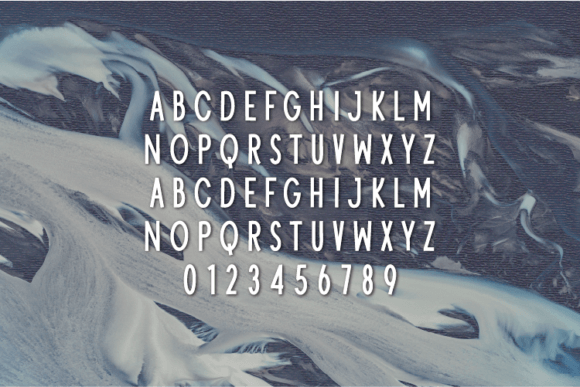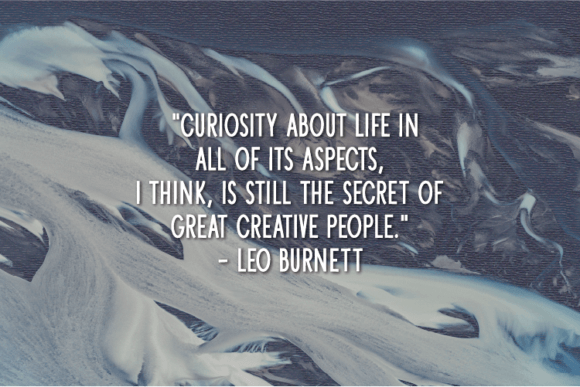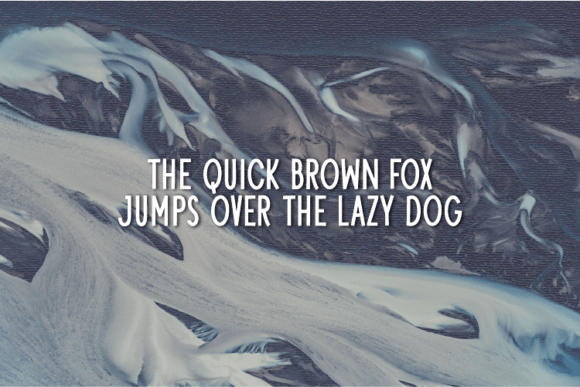
Goddess Font: Elevate Your Designs with a Friendly and Cool Handwritten Style
Are you on the hunt for a font that exudes a sense of warmth, approachability, and style? Look no further than the Goddess Font! This beautiful, handwritten font is perfect for designers and crafters looking to add a touch of elegance and sophistication to their projects. With its minimalist and clean vibe, Goddess Font is an excellent choice for a wide range of applications, from book covers and magazines to social media posts and invitations.
What Makes Goddess Font So Special?
Goddess Font is a unique and versatile typeface that boasts a friendly and cool handwritten style. Its clean lines, subtle curves, and balanced proportions make it an excellent choice for designers seeking a font that is both visually appealing and easy to read. Whether you’re working on a creative project or simply want to add a personal touch to your digital content, Goddess Font is sure to impress.
Key Features of Goddess Font
- Handwritten style: Goddess Font features a beautiful, handwritten style that adds a touch of warmth and personality to your designs.
- Minimalist and clean vibe: The font’s minimalist and clean aesthetic makes it perfect for a wide range of applications, from modern and sleek designs to more traditional and elegant projects.
- Easy to read: Goddess Font is designed to be easy to read, making it an excellent choice for body text, headings, and titles.
- Versatile: This font is perfect for a variety of projects, including book covers, magazines, social media posts, invitations, and more.
Uses for Goddess Font
Goddess Font is an incredibly versatile typeface that can be used in a wide range of applications. Here are some ideas to get you started:
- Book covers: Add a touch of elegance and sophistication to your book covers with Goddess Font.
- Magazines: Use Goddess Font as a headline or body font to add a touch of warmth and personality to your magazine layouts.
- Social media posts: Elevate your social media posts with Goddess Font, perfect for creating eye-catching graphics and engaging content.
- Invitations: Add a touch of style and sophistication to your invitations, whether it’s for a wedding, birthday party, or other special occasion.
- Branding and packaging: Use Goddess Font to create a cohesive brand identity that exudes warmth, approachability, and style.
Why Designers and Crafters Love Goddess Font
Designers and crafters love Goddess Font for its unique combination of style, versatility, and ease of use. Here are just a few reasons why:
- Easy to use: Goddess Font is incredibly easy to use, even for those with limited design experience.
- High-quality design: The font is designed to high-quality standards, ensuring that your projects look professional and polished.
- Time-saving: With Goddess Font, you can create stunning designs in no time, saving you time and effort.
In conclusion, Goddess Font is an exceptional choice for designers and crafters looking to add a touch of elegance, sophistication, and style to their projects. With its friendly and cool handwritten style, minimalist and clean vibe, and versatility, Goddess Font is perfect for a wide range of applications. Whether you’re working on a creative project or simply want to elevate your digital content, Goddess Font is sure to impress.